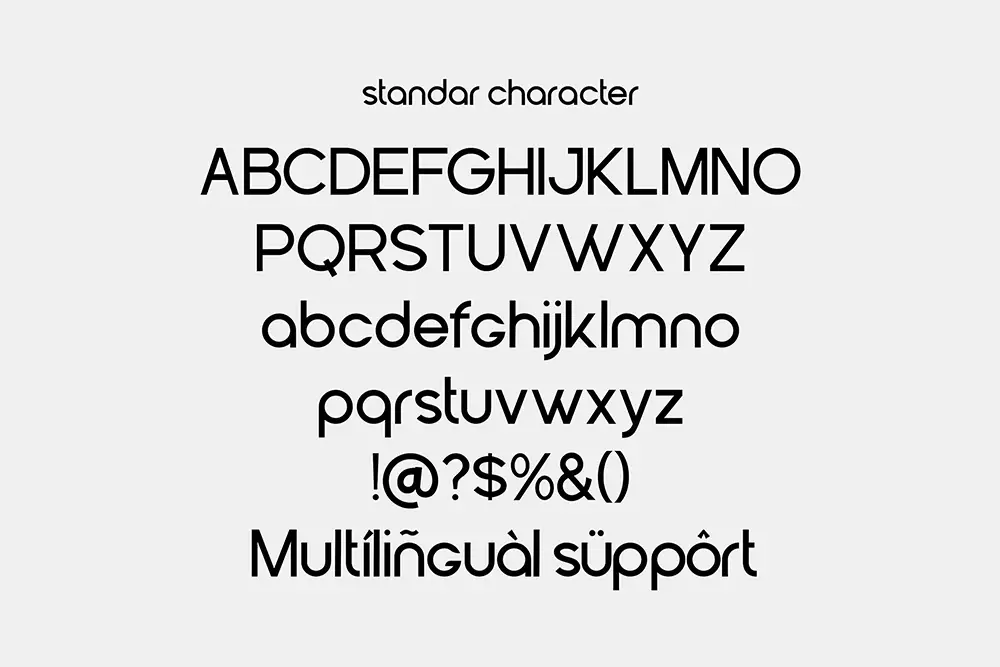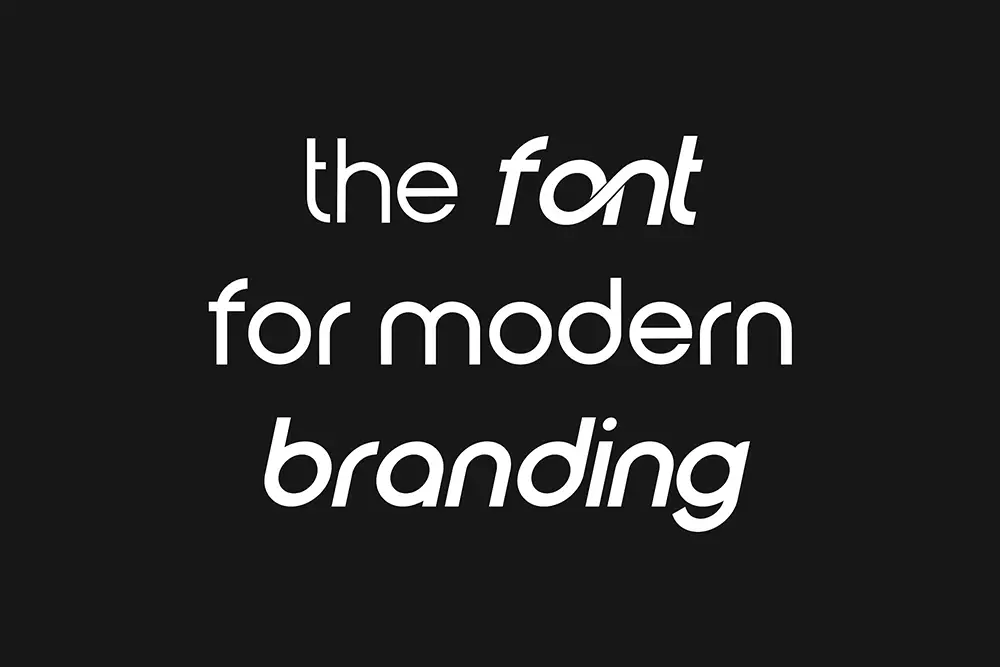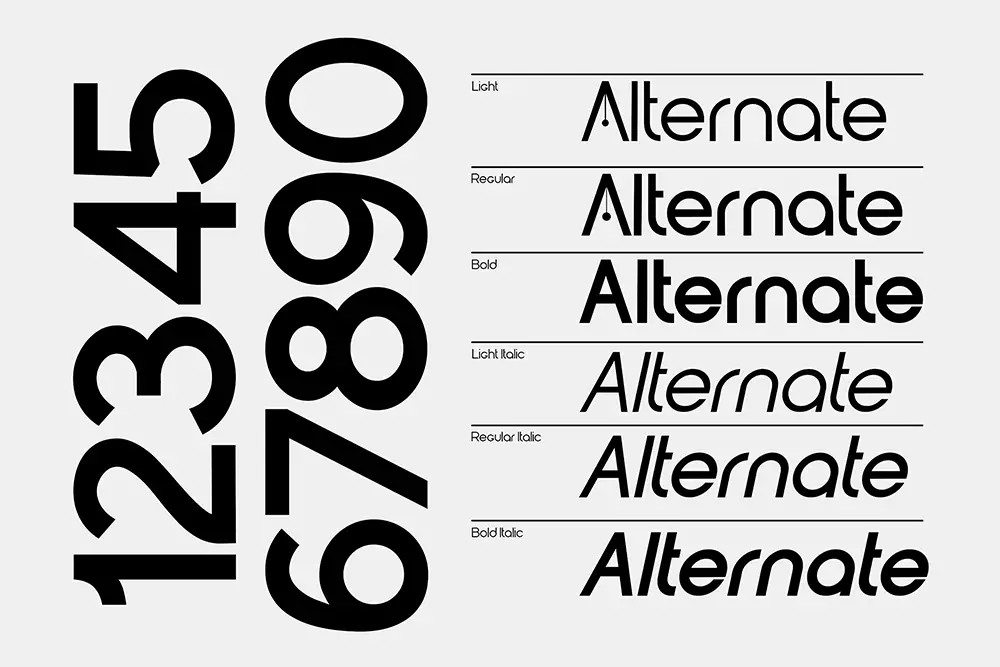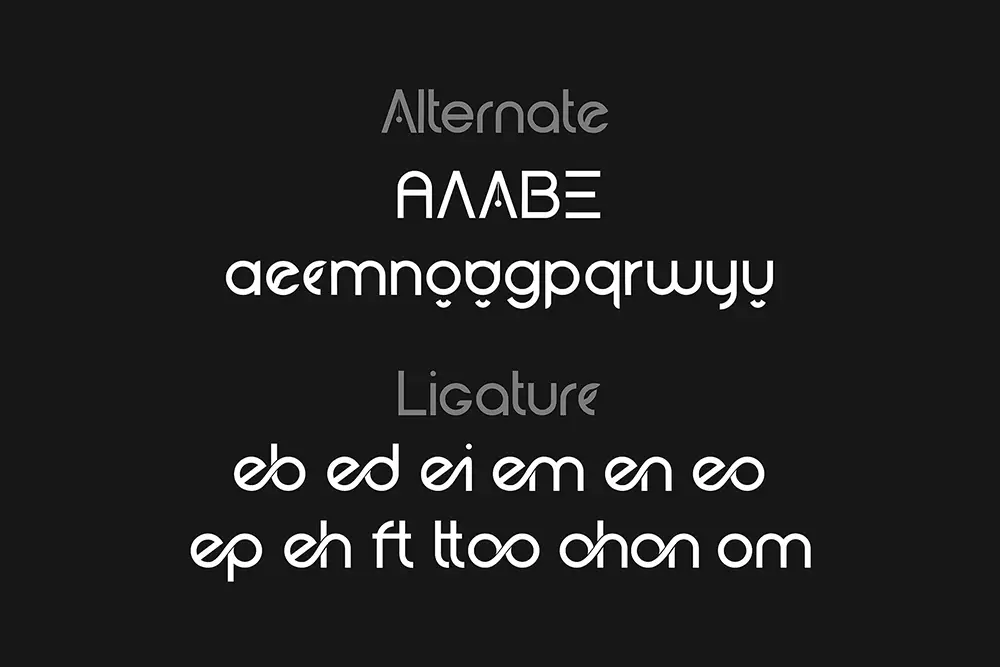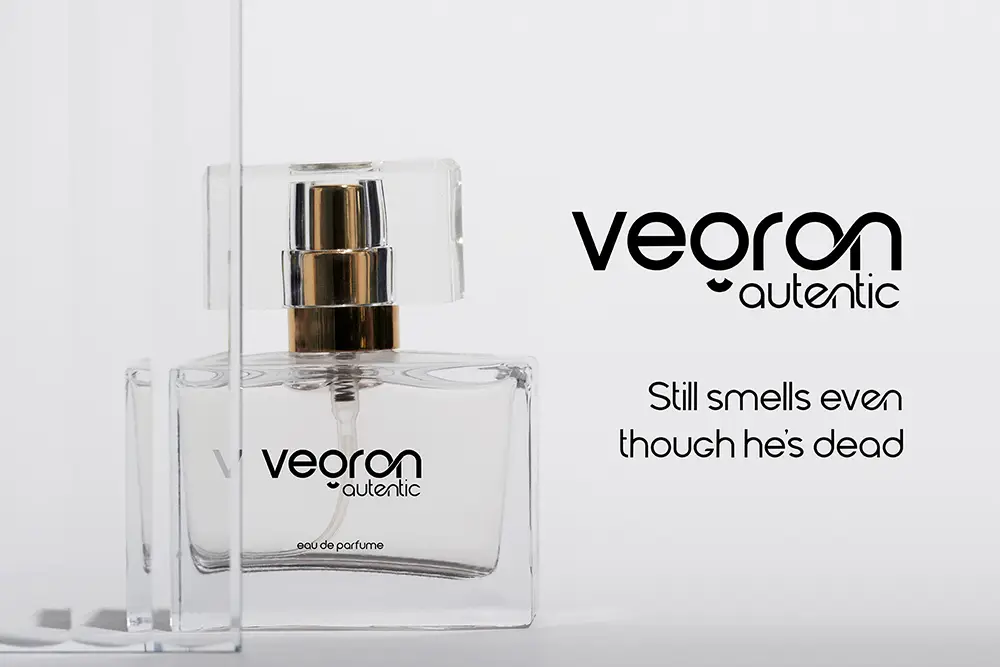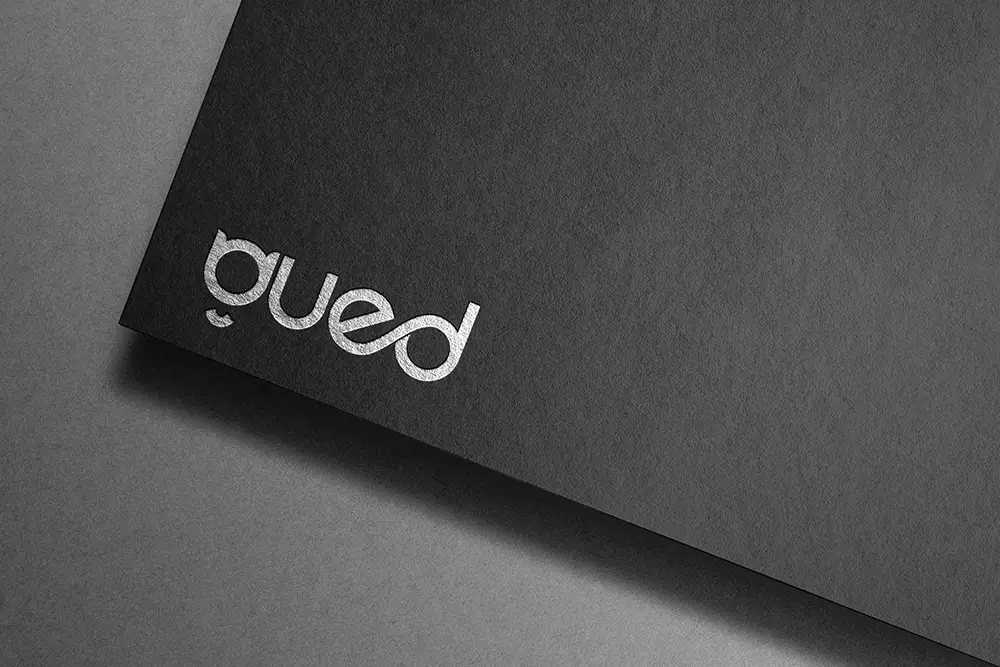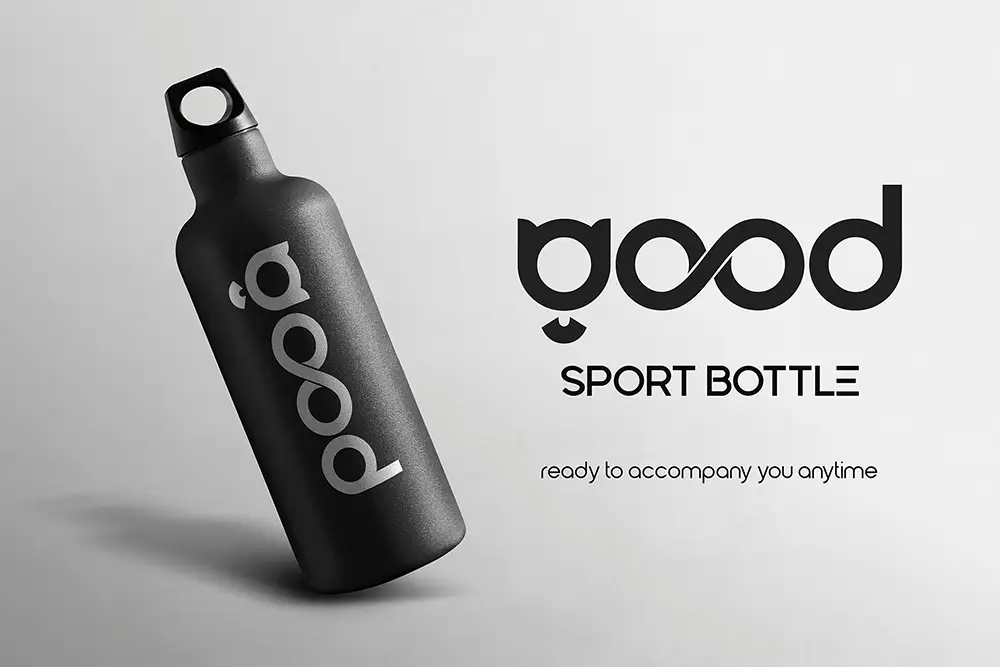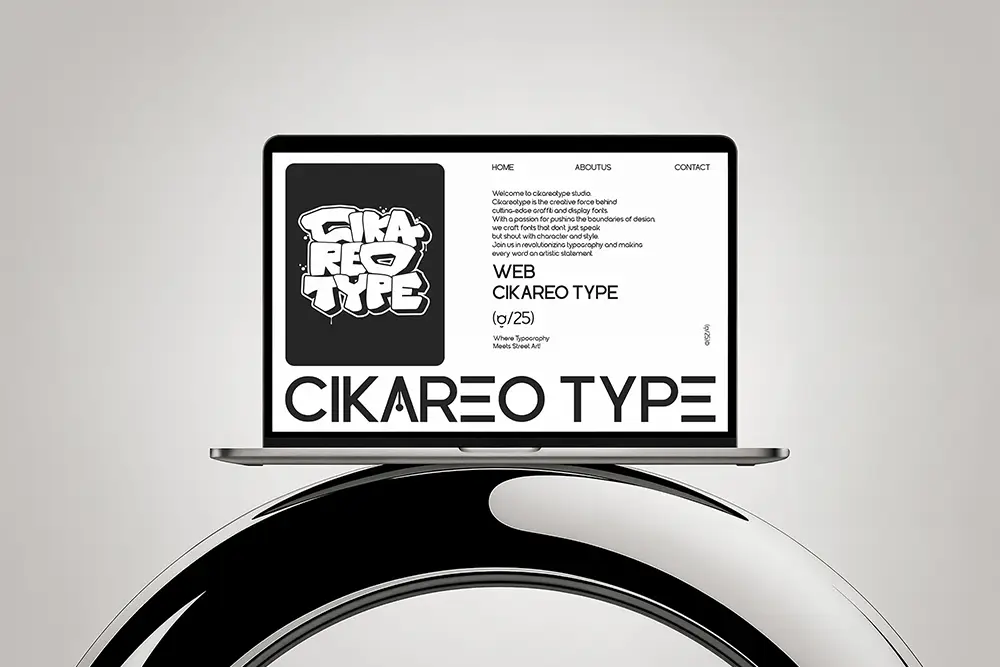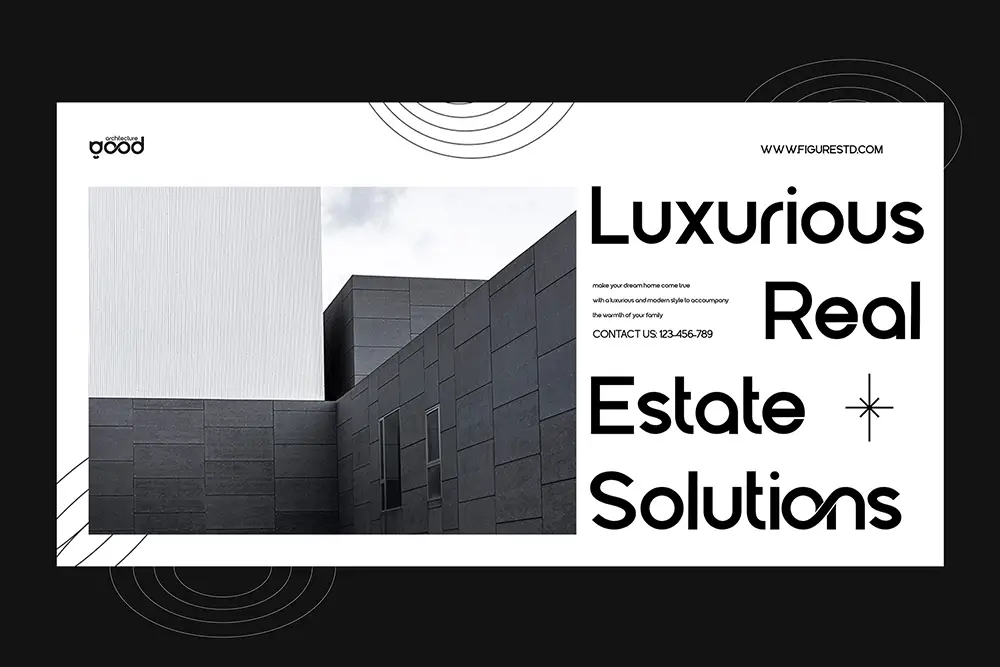
Gued – Geometric Sans Serif Font for Clean and Modern Logo
Typography defines how a brand communicates—clean, confident, and timeless. That’s where Gued – Geometric Sans Serif Font comes in. Built for modern designers who value simplicity, Gued blends geometric precision with smooth proportions to create a versatile font for logos, branding, and digital design.
This geometric sans serif font gives every project a polished and professional touch. With multiple weights, italics, alternates, and ligatures, Gued offers full control over style and expression while maintaining a clean, modern aesthetic.
Geometric Sans Serif Font with Modern Clarity
Gued is designed to balance simplicity and sophistication. As a geometric sans serif font, it uses clean lines and symmetrical shapes to ensure maximum legibility across print and digital platforms. From tech startups and corporate identities to lifestyle brands and creative portfolios, Gued’s modern edge fits everywhere.
The result? A clean, minimal, and confident typeface that gives your logo or headline the clarity it deserves.
Key Features of Gued – Geometric Sans Serif Font
Gued isn’t just another sans serif font. It’s a complete type family built for professionals who demand both beauty and flexibility.
• Uppercase, Lowercase, Numbers, Punctuations
• Alternates & Ligatures for unique typography customization
• Multilingual Support with extended Latin characters
• Perfect for Logos, Headings, and Editorial Design
• Consistent Geometric Construction for a smooth and clean appearance
Why Designers Love Gued
Designers adore Gued because it’s the kind of geometric sans serif font that adapts effortlessly to different design moods—minimal, futuristic, or corporate.
• Professional and Clean Aesthetic: Ideal for tech branding, startups, and digital interfaces.
• Versatile Weights: From Light to Bold Italic, every variation maintains balance and consistency.
• Creative Freedom: Alternates and ligatures help create distinctive wordmarks and titles.
• Reliable Geometry: Every curve and corner designed for harmony and readability.
Whether you’re crafting a high-tech logo or refining an editorial layout, Gued provides the foundation for timeless modern design.
Gued for Modern Logos and Branding
A logo should be simple, recognizable, and memorable—and that’s exactly what Gued helps you achieve. This geometric sans serif font is built for designers who want a clean, balanced logo with long-lasting visual appeal.
The bold weights project strength and confidence, while the light versions deliver minimalist elegance. Together, they form a perfect toolkit for brand identities, packaging, and digital assets that demand precision and refinement.
Gued in Web and App Design
In digital spaces, clarity is everything. Gued’s clean geometry ensures optimal readability on screens, making it ideal for websites, user interfaces, and app branding. As a geometric sans serif font, it performs beautifully across resolutions and devices—keeping your message sharp and consistent.
Use it for landing page headlines, navigation text, or clean app typography where minimalism meets modern style.
• Alternates & Ligatures: Yes
• Multilingual Support: Yes
• Category: Geometric Sans Serif Font
• Best Uses: Logos, Branding, Editorial, UI Design, Tech, Corporate
Why Gued Is the Perfect Geometric Sans Serif Font
Gued is more than just a font—it’s a modern design system. Every version (Light, Bold, Italic, and more) is engineered to help your project look sharp, clean, and forward-thinking. Its geometric sans serif font construction ensures harmony across typography while giving flexibility for experimentation.
Designers choose Gued for clarity, precision, and timeless elegance—ideal for logos, print media, web interfaces, and everything in between.
If you’re looking for a geometric sans serif font that delivers a clean, professional, and contemporary feel, Gued is the answer. It’s versatile enough for logos, branding, UI design, and editorial layouts—making it a must-have in every designer’s collection.